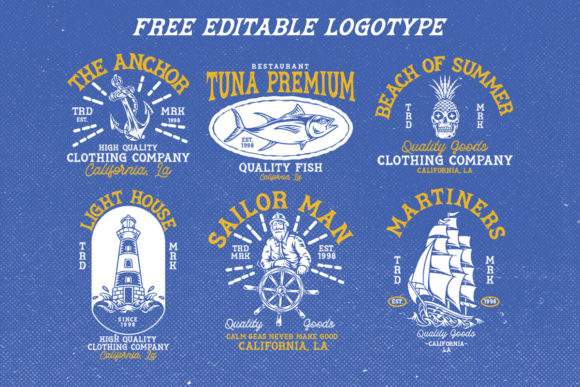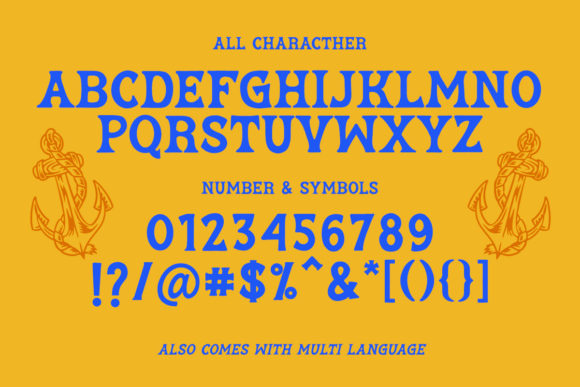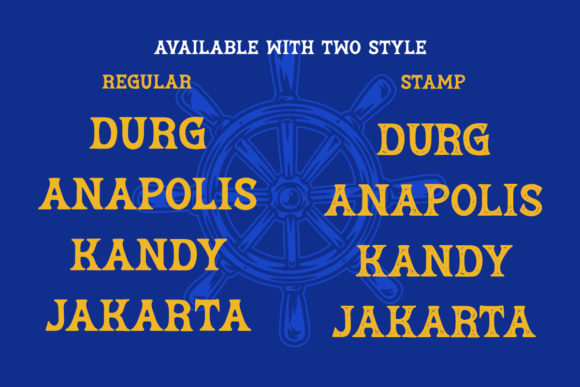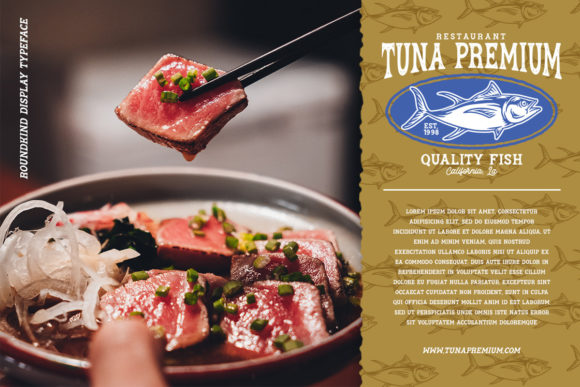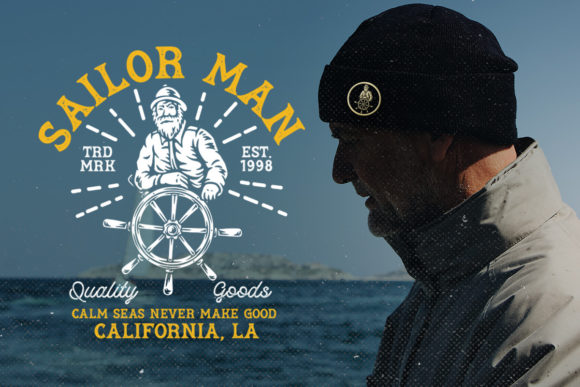
Introduction to Round Kind Font Font
Fonts play a crucial role in design, and the Round Kind Font font is a typeface that brings both character and versatility to any project. Whether you’re working on a branding project, a website, or a print design, the Round Kind Font font offers a unique style that can elevate your work.
| 📌 Font Name | Round Kind Font |
| 👤 Author | letterhend |
Round Kind is a modern-vintage serif font featuring a nostalgic feel and luxurious vibes.
This font has strong and beautiful characters perfect for logos, invitations, labels, magazines, books, greeting/wedding cards, packaging, fashion, makeup, stationery, novels, labels, or more .
Key Features of Round Kind Font Font
Why Choose Round Kind Font Font?
The Round Kind Font font is more than just a typeface – it’s a design tool that helps you communicate your message with style and clarity. Its unique character set and versatile design make it suitable for a wide range of applications, from elegant invitations to bold headlines.
With its carefully crafted letterforms and balanced proportions, the Round Kind Font font ensures readability and visual appeal across all mediums.
What makes Round Kind Font font special?
The Round Kind Font font stands out with its unique design, exceptional readability, and versatility across various design applications.